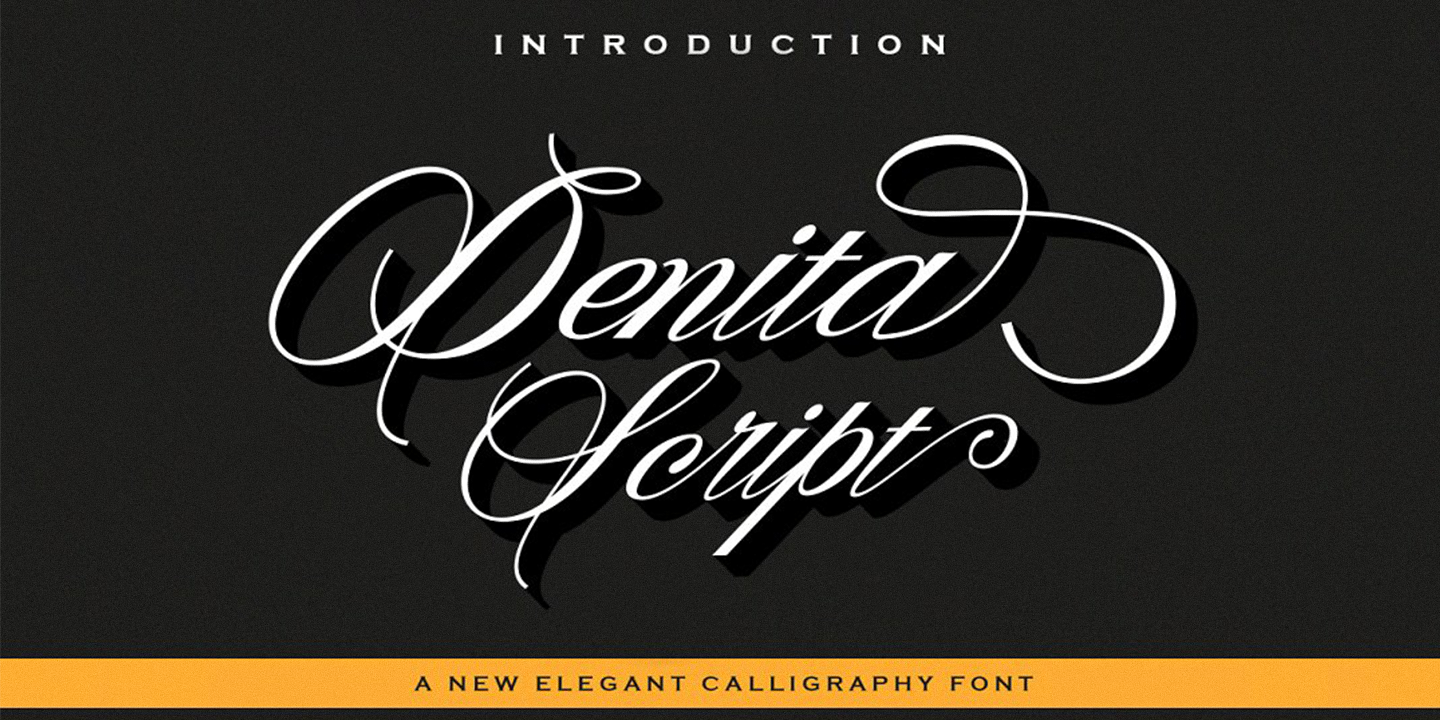
The Denita Script Font is incredibly versatile, making it an exquisite choice for a wide array of design projects that aim to evoke a sense of personalized elegance, artistic flourish, and heartfelt charm. Imagine it gracing luxurious wedding invitations, adding a sophisticated, handcrafted touch to high-end branding for bespoke products, or bringing a flowing, beautiful feel to editorial layouts for lifestyle and beauty publications. It's also fantastic for crafting unique greeting cards, enhancing product packaging for artisanal goods, and designing captivating social media graphics that stand out with their bespoke appeal. Its inherent grace and expressive flow make it perfect for any project striving to communicate genuine warmth, individual style, and an undeniable sense of refined artistry.
What makes Denita Script Font so exciting is its unique ability to combine the natural elegance of authentic handwriting with exceptional legibility and decorative versatility. It often features smooth, connected letterforms, delicate swashes, and a consistent rhythm that gives it an immediate sense of authenticity and bespoke craftsmanship. This font doesn't just display text; it signs off on it, making your message feel intimate, warm, and truly special. Its balance of aesthetic appeal and functional clarity ensures that your designs are not only beautiful but also effectively convey their intended sentiment. It's a typeface that brings an atmosphere of romantic artistry and personal touch to your typography, guaranteeing your projects leave a graceful and memorable impression.
The Denita Script Font family typically includes a range of stylistic alternatives and features to provide extensive creative flexibility. While specific options can differ, you can generally expect to find alternatives like various ligatures, stylistic sets, and elegant swashes that enhance its natural, handwritten appearance. These features allow you to customize the flow and connectivity of the script, ensuring a unique and beautifully crafted design. This comprehensive family support ensures that whether you need a prominent, elegant headline or a subtle, personal accent, Denita Script Font Free Download offers the perfect elements to bring your sophisticated vision to life.